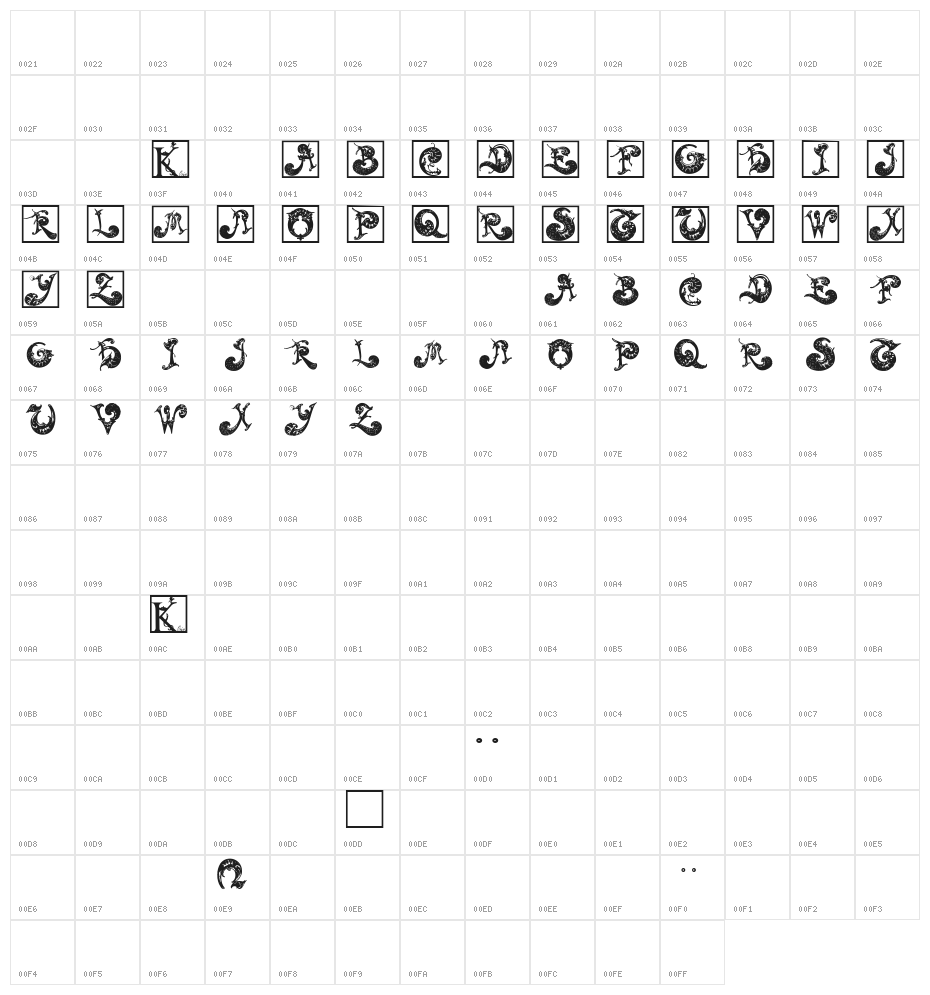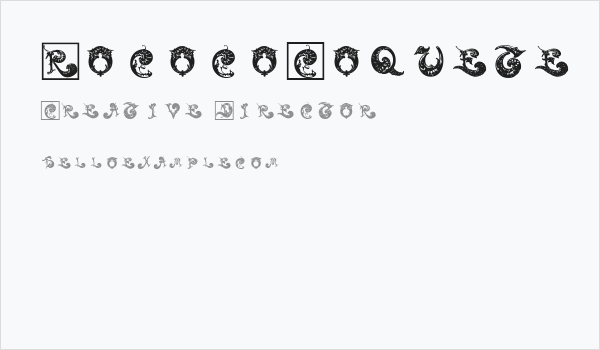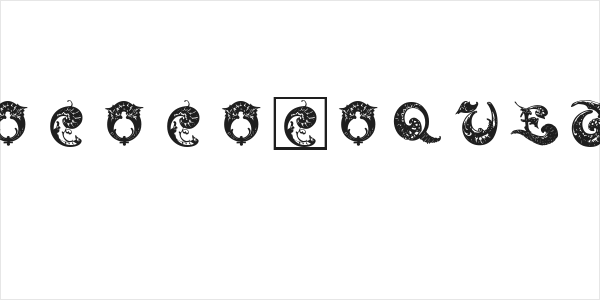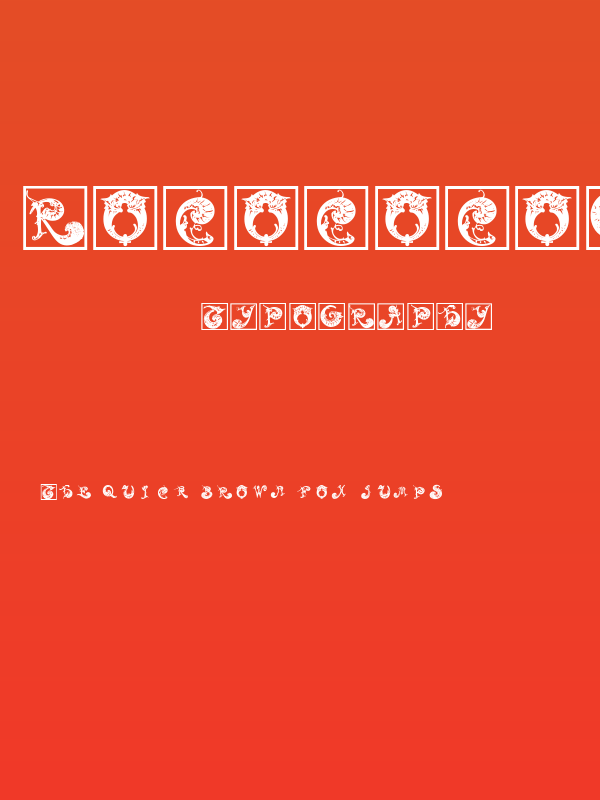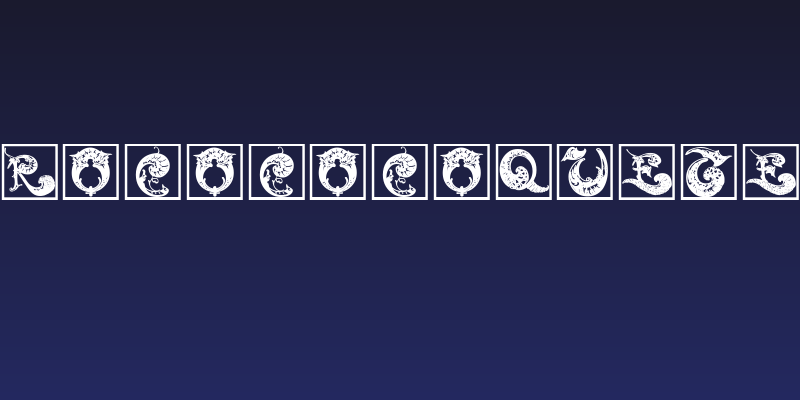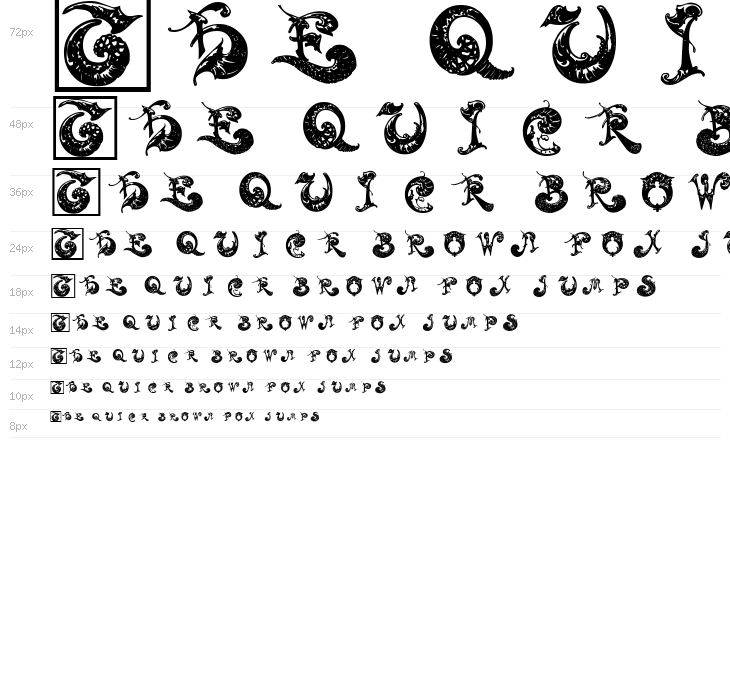
RococoCoquete Font
RococoCoquete Description
This font exudes an ornate and decorative style, reminiscent of the Rococo art movement. Each character is intricately designed with elaborate flourishes and embellishments, creating a sense of elegance and sophistication. The letters are highly stylized, with swirling patterns and detailed accents that give them a unique and artistic appearance. This font is perfect for projects that require a touch of luxury and grandeur, making it ideal for invitations, branding, and decorative purposes. The overall aesthetic is both vintage and timeless, capturing the essence of classical beauty.
Overall StyleVintage
Use CaseLogos, Headlines, Decorative text
Proposed ProjectsIdeal for wedding invitations, luxury branding, decorative posters, and artistic projects.